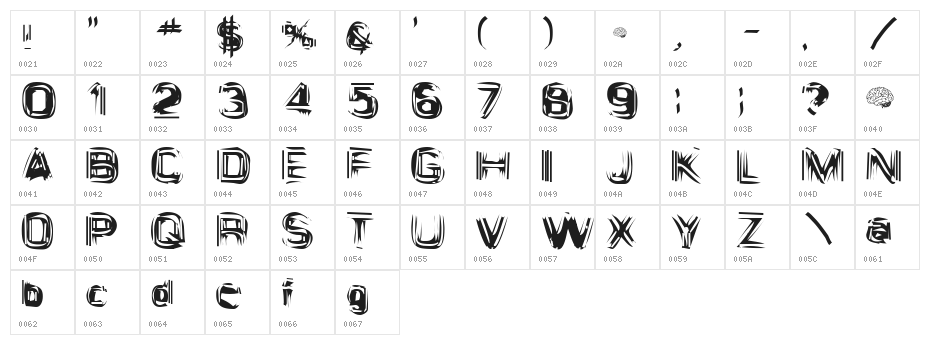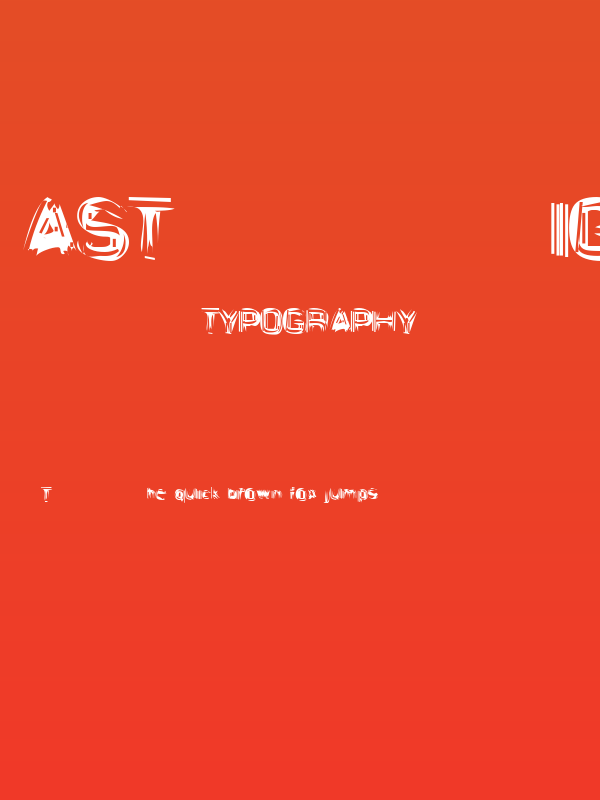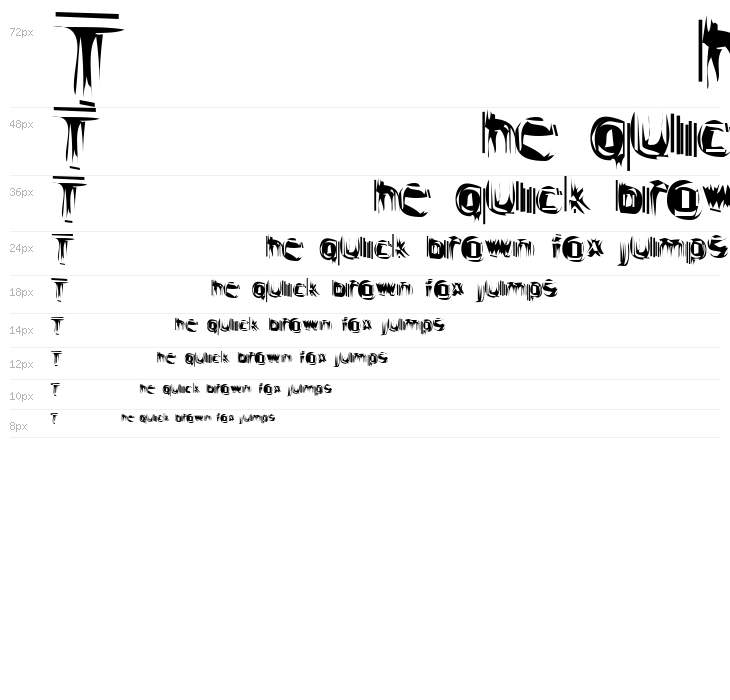
Astigama Tizm Font
Astigama Tizm Description
This font exhibits a bold and dynamic style characterized by sharp, angular edges and a sense of movement. The letters are heavily stylized with a unique, almost chaotic appearance, featuring jagged lines and irregular shapes that create a sense of energy and intensity. The uppercase and lowercase letters maintain this edgy aesthetic, while the numbers and special characters follow suit with equally striking designs. The overall impression is one of modernity and boldness, making it suitable for projects that require a strong visual impact.